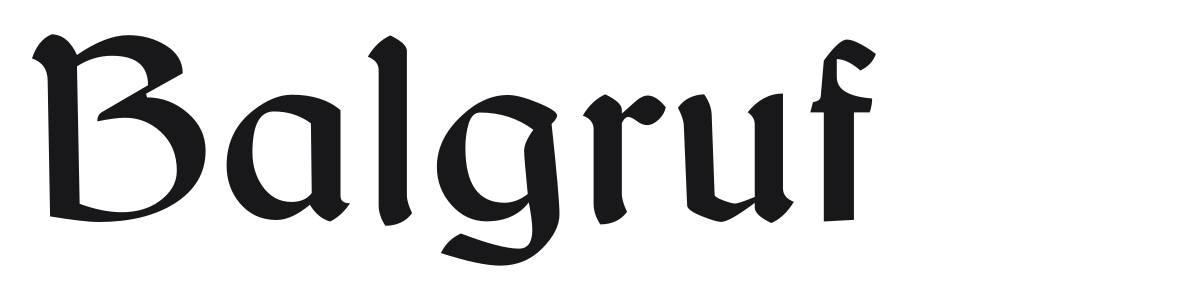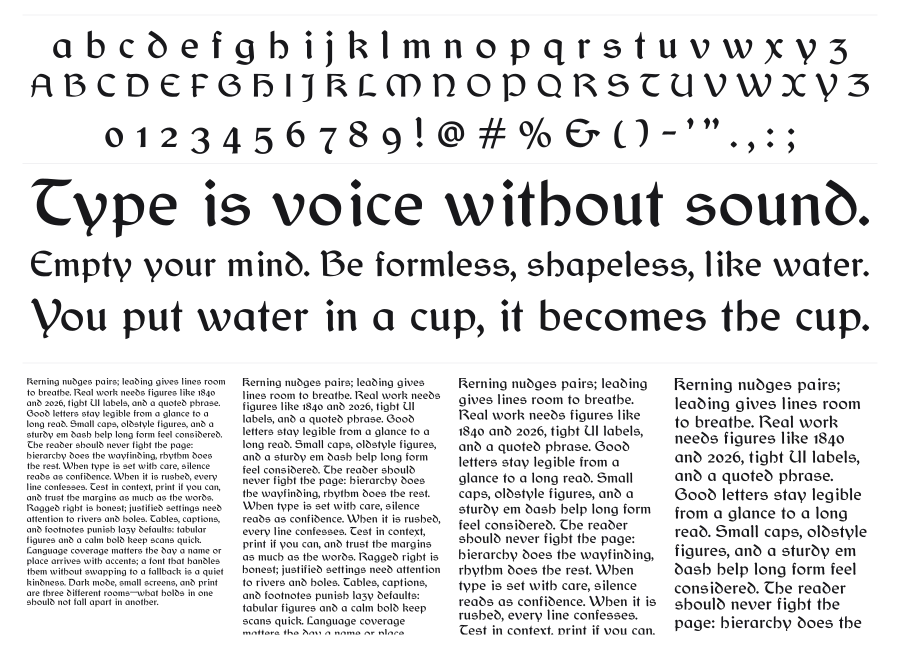
Balgruf
by Paul Miller
Balgruf is a bold semi-uncial face inspired by the in-game book typography of Skyrim, born from a type designer's desire to correct a nagging flaw in the original. The characters draw on medieval manuscript traditions, with pointed terminals and sturdy strokes that feel hand-lettered without being precious. It carries genuine archaic weight, suited to fantasy titles, game interfaces, and anywhere a Nordic or ancient atmosphere is needed.